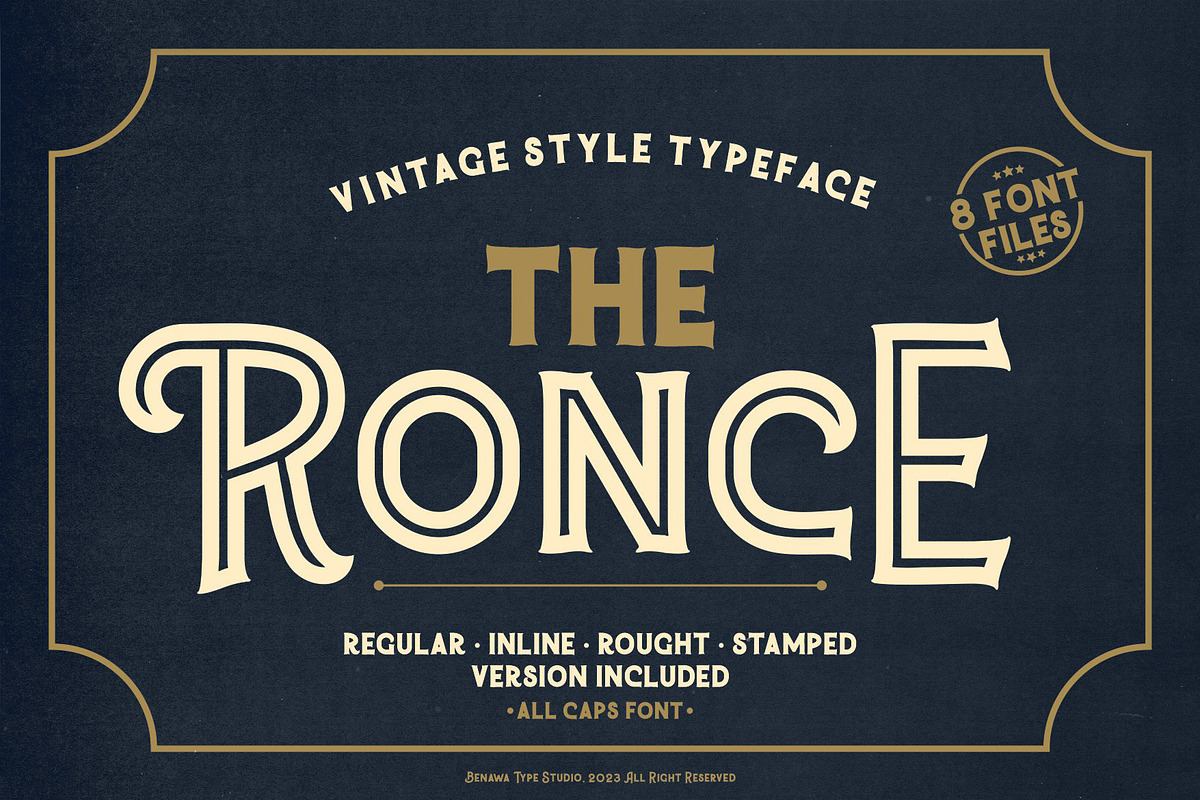
Ronce - Vintage Display Font Free Download is a bold, retro-inspired typeface that combines old-school charm with modern versatility. With its unique letterforms, sharp edges, and vintage aesthetic, Ronce is perfect for branding, logo design, posters, packaging, and any project that needs a nostalgic, classic feel.
Its display style makes it stand out in large text, offering high impact while maintaining a sophisticated, vintage look. Whether you're creating a retro logo or designing a classic poster, Ronce adds personality and flair to any design.